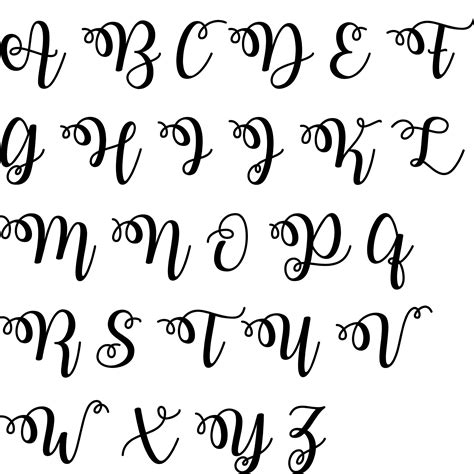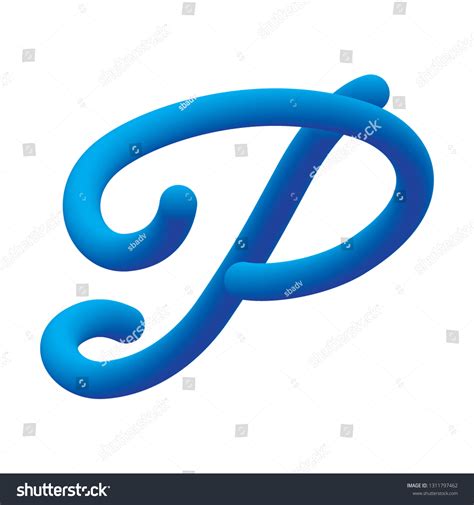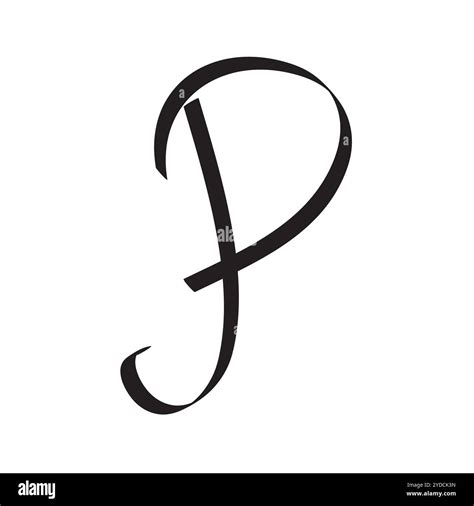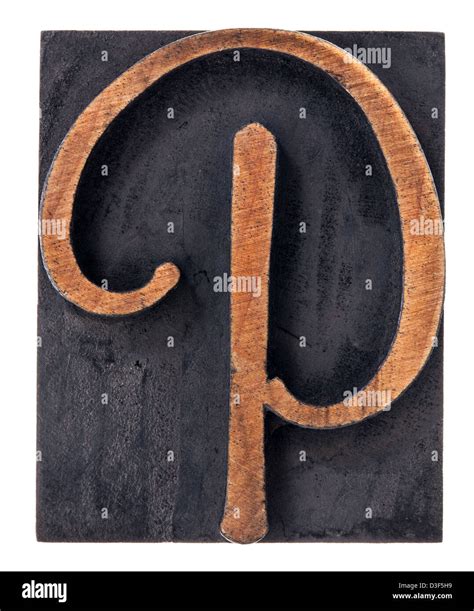
Choose the complete typography can define the optical identity of any originative undertaking, and notice a versatile P Script Font is ofttimes the become point for designers look to add elegance and personality to their work. Whether you are plan wed invitation, crafting a sophisticated brand logotype, or producing editorial layouts, the right cursive fount acts as a span between the reader and the emotional timber of the message. Handwriting case, characterize by their flow, calligraphic nature, seizure the essence of human touching in a digital surround. By integrating a distinct script style that part with the letter P or features intricate P-curves, you insure that your headlines find fluid, professional, and visually occupy for your audience.
The Versatility of Script Typography in Modern Design
Typography is not merely about readability; it is about conveying a content through physique, weight, and flow. A P Script Font often wreak an air of luxury and inheritance to a layout. These fonts are inspired by traditional copperplate calligraphy or modern brush pen stroke, do them implausibly adaptable to different design mode.
When to Use Decorative Script Fonts
Knowing when to deploy a ornamental script versus a standard seriph or sans-serif is important for effectual hierarchy. You should consider employ handwriting typeface when:
- Emphasizing headings: Book fonts serve as excellent focal point for champion sections on websites or front masking of magazine.
- Make a personal connection: Because hand mimic handwriting, they fire reliance and involvement in invitation or personal blogs.
- Found a premium expression: Luxury brands often utilize thin, flow scripts to mean exclusivity and elegance.
Comparing Script Font Styles
To assist you choose the correct font for your project, consider the postdate characteristic that delimit different script categories.
| Style Family | Good Employ For | Optic Weight |
|---|---|---|
| Copperplate Script | Formal invitations | Light/Elegant |
| Brush Script | Casual, energetic ads | Bold/Dynamic |
| Monoline Script | Minimalist, mod logos | Consistent/Clean |
💡 Line: Always ensure that when expend a handwriting font, you adjust the tracking or letter-spacing, as tight, flowing letters can become hard to say at smaller sizes.
Best Practices for Pairing Fonts
The large mistake decorator make when using a P Script Font is couple it with another complex typeface. To conserve legibility and visual balance, postdate these simple rules:
- Brace with Sans-Serif: Use a clean, geometrical sans-serif for body text to allow the script baptistry to shine in the headers.
- Line Weight: If the hand baptistry is lean and delicate, pair it with a sheer, high-contrast seriph baptistery for a classic editorial look.
- Limit Use: Script case should ne'er comprise most your schoolbook. Reserve them for specific highlights or short idiom.
Common Pitfalls in Script Selection
While scripts are beautiful, they can be problematic if not manage with aid. Many tyro overlook the importance of ligature support - the way specific letter combination, like a' P' connecting to an' o' or an' a ', look join. Always appear for case that include OpenType feature, which let for automatic swashes and character variation. This control that the letters look like a individual, cohesive stroke of ink rather than disconnect characters.
💡 Note: Test your elect typeface across multiple devices to ensure it retain its delicate line character on high-resolution display.
The selection of composition remains one of the most knock-down tools in a architect's arsenal to communicate humour and purpose. By cautiously evaluating the weight, flow, and personality of a script case, you can advance your projects from standard to exceptional. Remember that the finish is to enhance the message, not distract from it; therefore, proportion and restraint are crucial when work with ornate letterforms. With the correct coating, these graceful face provide the perfect coating trace to any visual composition, ascertain that every bender and flourish contributes to a cohesive and memorable pattern lyric.